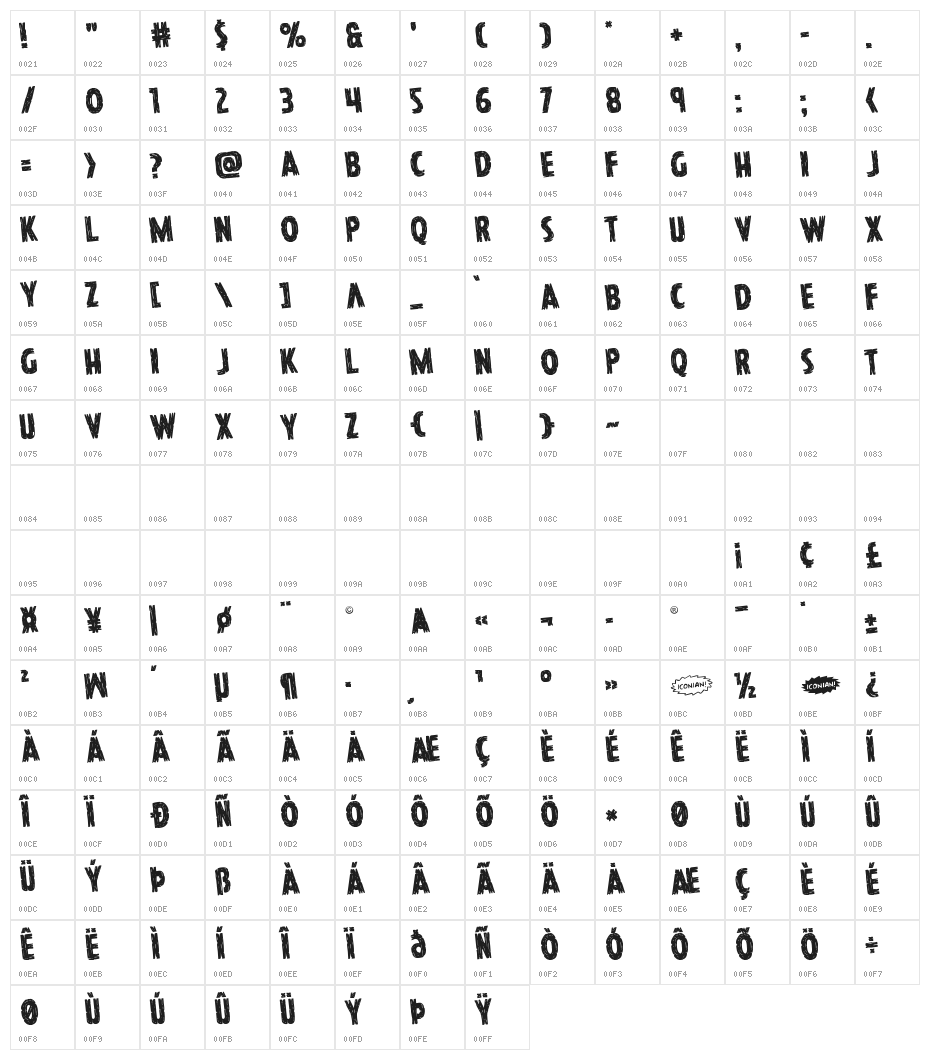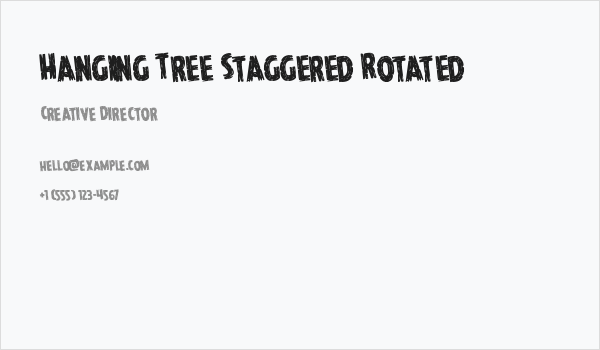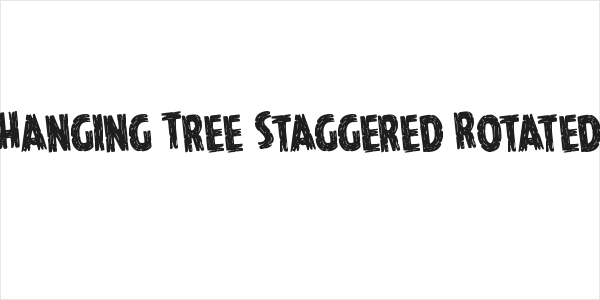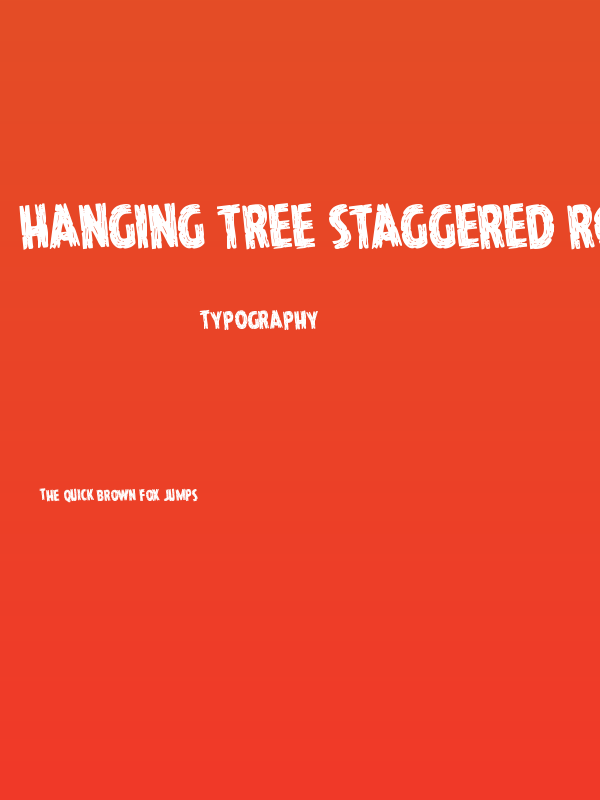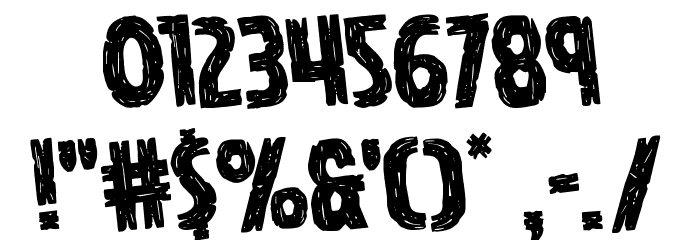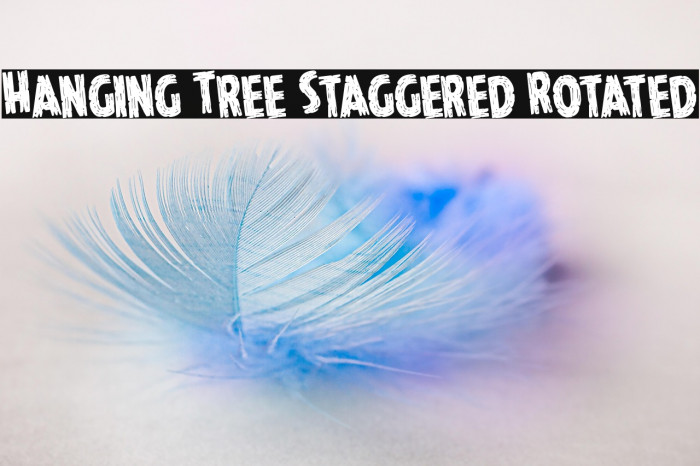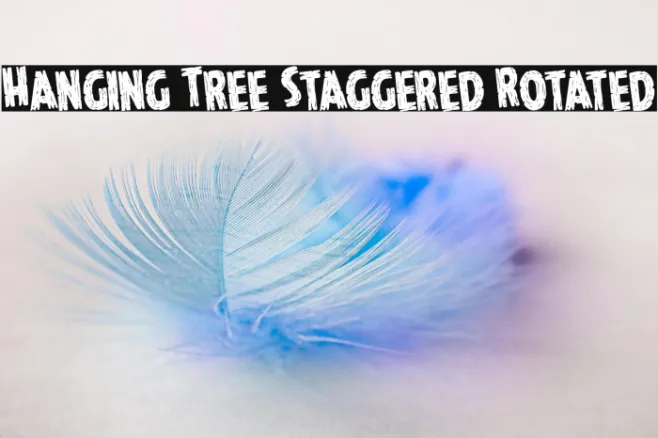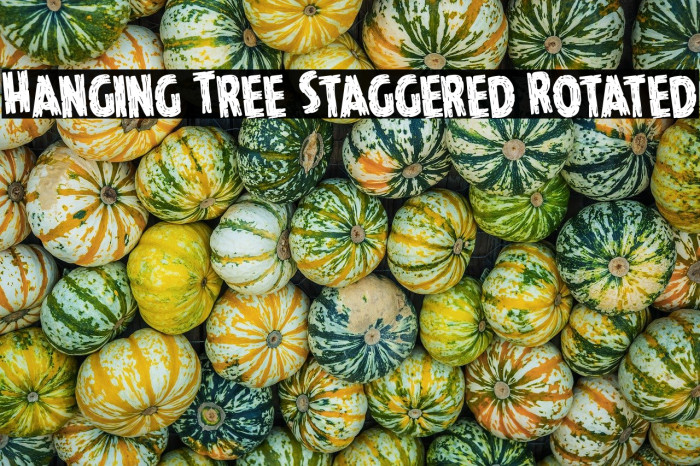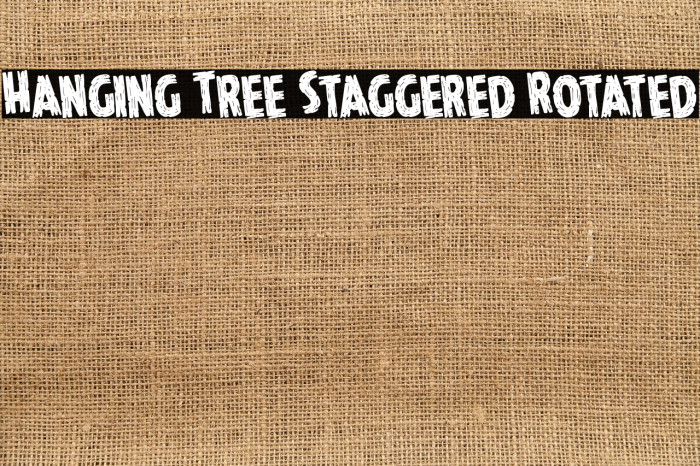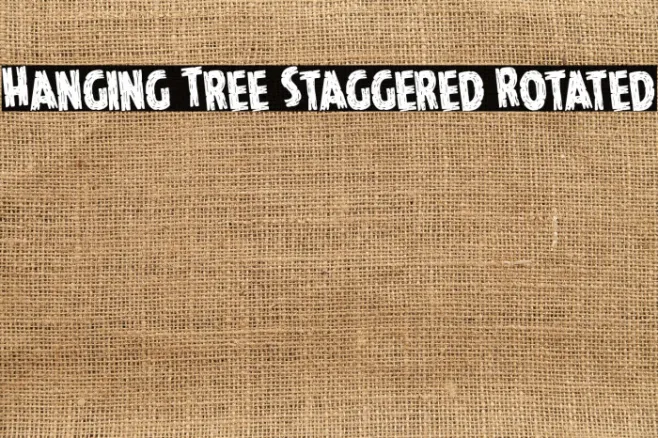
Hanging Tree Staggered Rotated Font
Hanging Tree Staggered Rotated Description
This font features a bold and rugged style, characterized by its uneven, hand-drawn appearance. The letters have a distressed look, with irregular edges and a textured fill that gives them a dynamic, energetic feel. The uppercase and lowercase letters maintain a consistent height, while the numbers and special characters follow the same design ethos, ensuring a cohesive look. This font's unique style makes it stand out, offering a sense of movement and creativity. Its boldness and distinctive appearance make it suitable for projects that require a strong visual impact.
| Proposed Projects | Ideal for posters, album covers, branding, and any project needing a bold, artistic touch. |